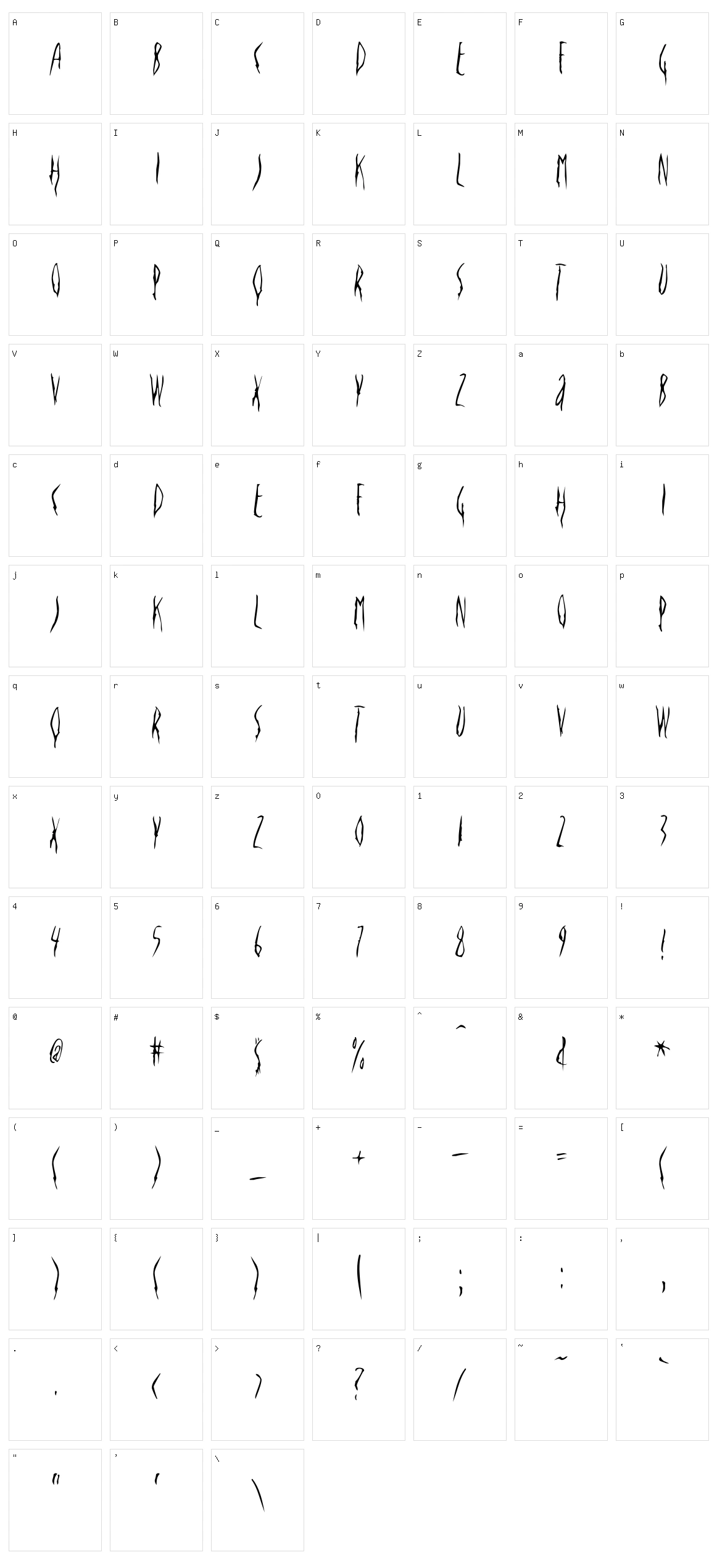
The free font Deportees is carefully designed by Typodermic Fonts, showcasing a thoughtful balance of creativity and usability and falls under the Trash font style. When you download the ZIP file, it contains only 66.36 KB of font files, making it lightweight and quick to download. Please review the license details below to understand permitted usage and distribution rights. If license information is not available, we recommend using this font for personal projects only or contacting the author directly for commercial usage permissions.